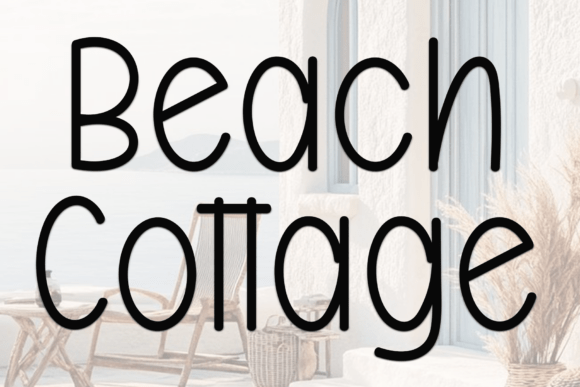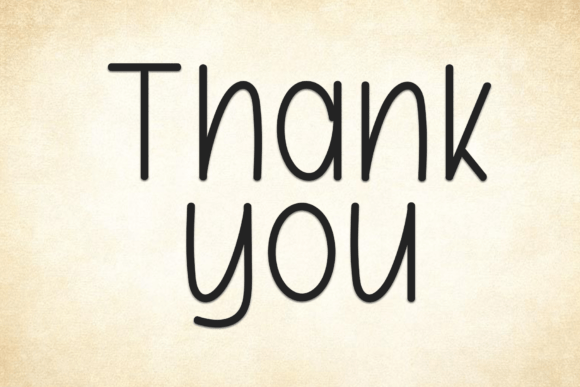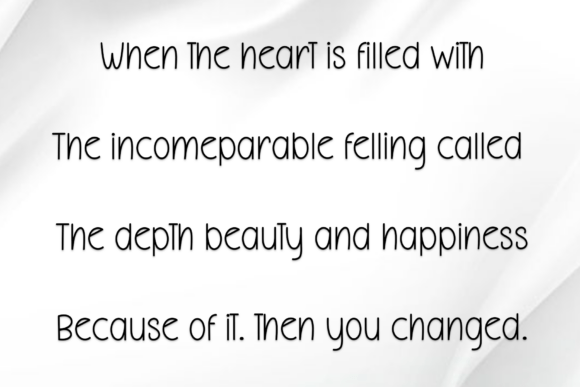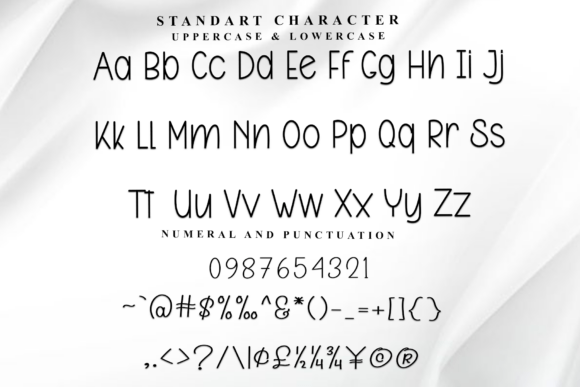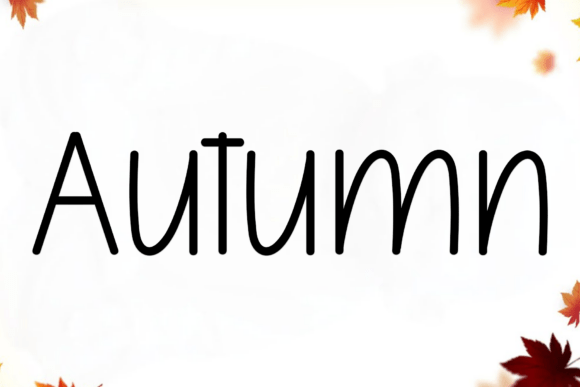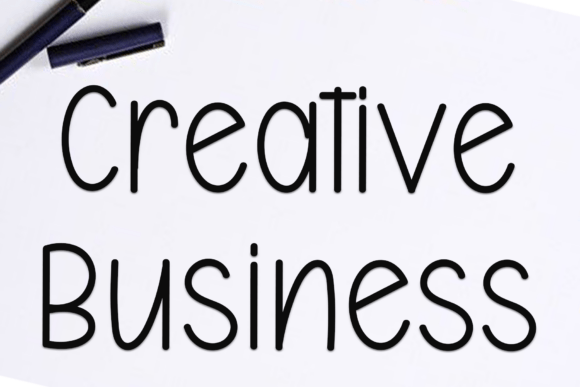
Introducing Classy Island Font: The Ultimate Holiday Typeface
Are you looking for a font that captures the essence of the holiday season? Do you want to add a touch of magic to your designs and make them stand out? Look no further than Classy Island Font, a festive and merry typeface that’s perfect for greeting cards, gift tags, and holiday-themed projects.
The Spirit of the Holiday Season in a Font
Classy Island Font is a decorative typeface that’s designed to bring the joy and wonder of the holiday season to your designs. With its whimsical flair and enchanting elements, this font is sure to add a touch of nostalgia and cheer to your words. Whether you’re creating holiday cards, gift tags, or festive posters, Classy Island Font is the perfect choice.
What Makes Classy Island Font So Special?
So, what sets Classy Island Font apart from other typefaces? Here are just a few features that make it a standout:
- Decorative Elements: Classy Island Font features decorative elements that add a touch of elegance and sophistication to your designs.
- Whimsical Flair: This font has a playful, whimsical feel that’s perfect for holiday-themed projects.
- PUA Encoding: Classy Island Font is PUA encoded, which means you can access all of the amazing glyphs and ligatures with ease.
Classy Island Font is perfect for designers and crafters who want to add a touch of holiday cheer to their projects. Whether you’re creating:
- Greeting Cards: Add a personal touch to your holiday cards with Classy Island Font.
- Gift Tags: Make your gift tags stand out with this festive font.
- Holiday Posters: Create eye-catching posters with Classy Island Font.
- Social Media Graphics: Add a touch of holiday magic to your social media graphics.
Why Choose Classy Island Font?
With so many fonts to choose from, why should you choose Classy Island Font? Here are just a few reasons:
- Unique and Eye-Catching: Classy Island Font is a unique and eye-catching typeface that’s sure to make your designs stand out.
- Easy to Use: This font is easy to use and comes with PUA encoding, making it simple to access all of the glyphs and ligatures.
- Versatile: Classy Island Font is versatile and can be used for a variety of projects, from greeting cards to social media graphics.
If you’re looking for a font that will add a touch of holiday magic to your designs, look no further than Classy Island Font. With its decorative elements, whimsical flair, and PUA encoding, this font is perfect for designers and crafters who want to create unique and eye-catching projects.